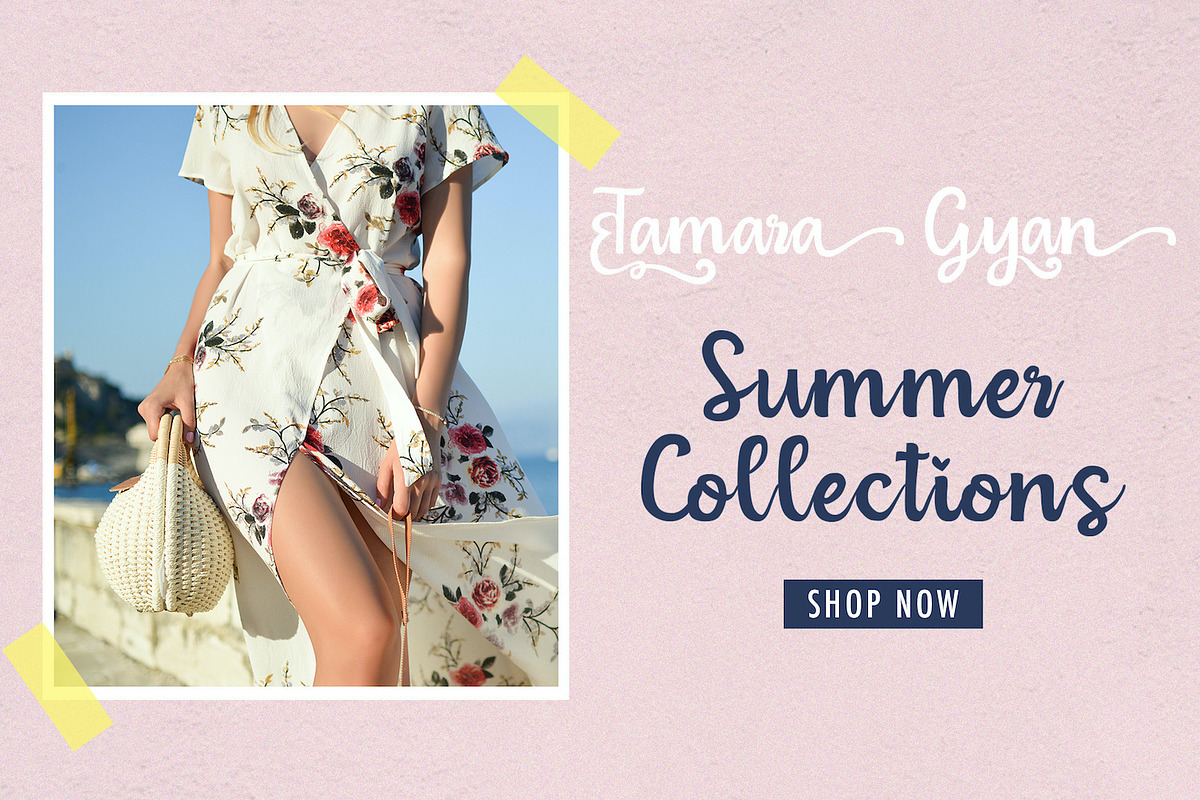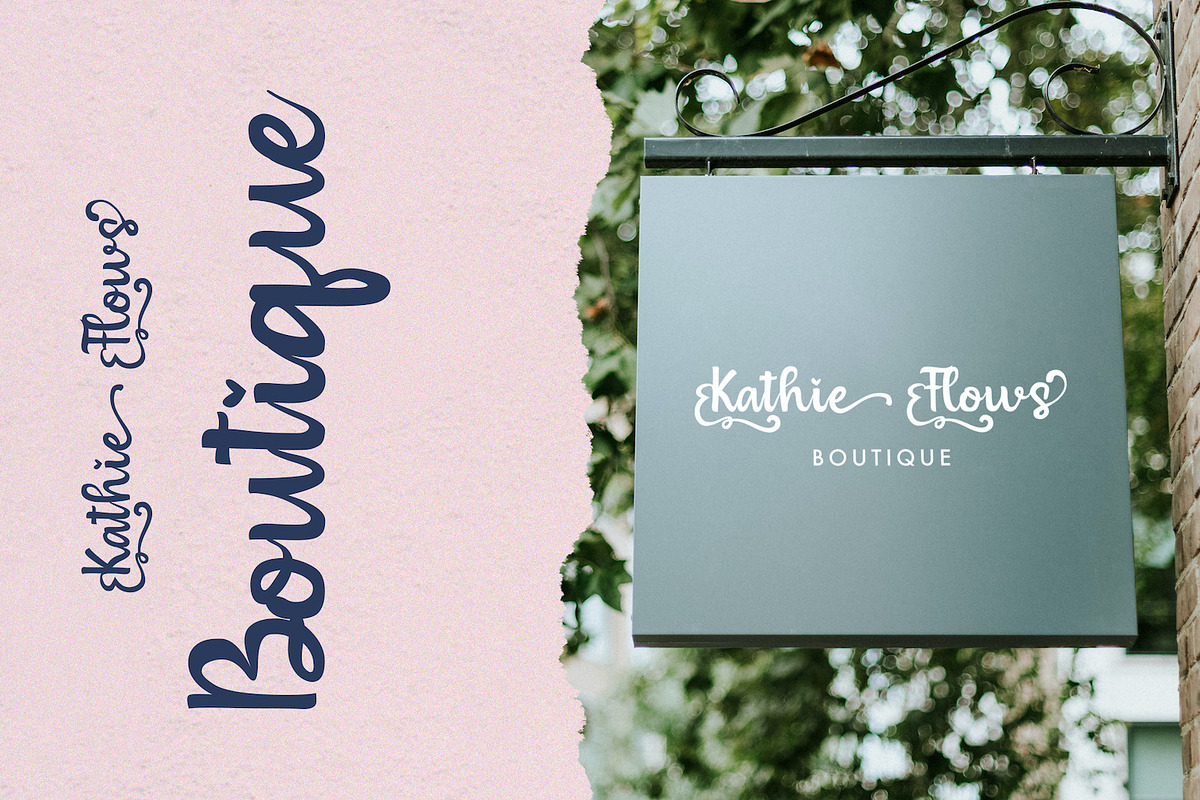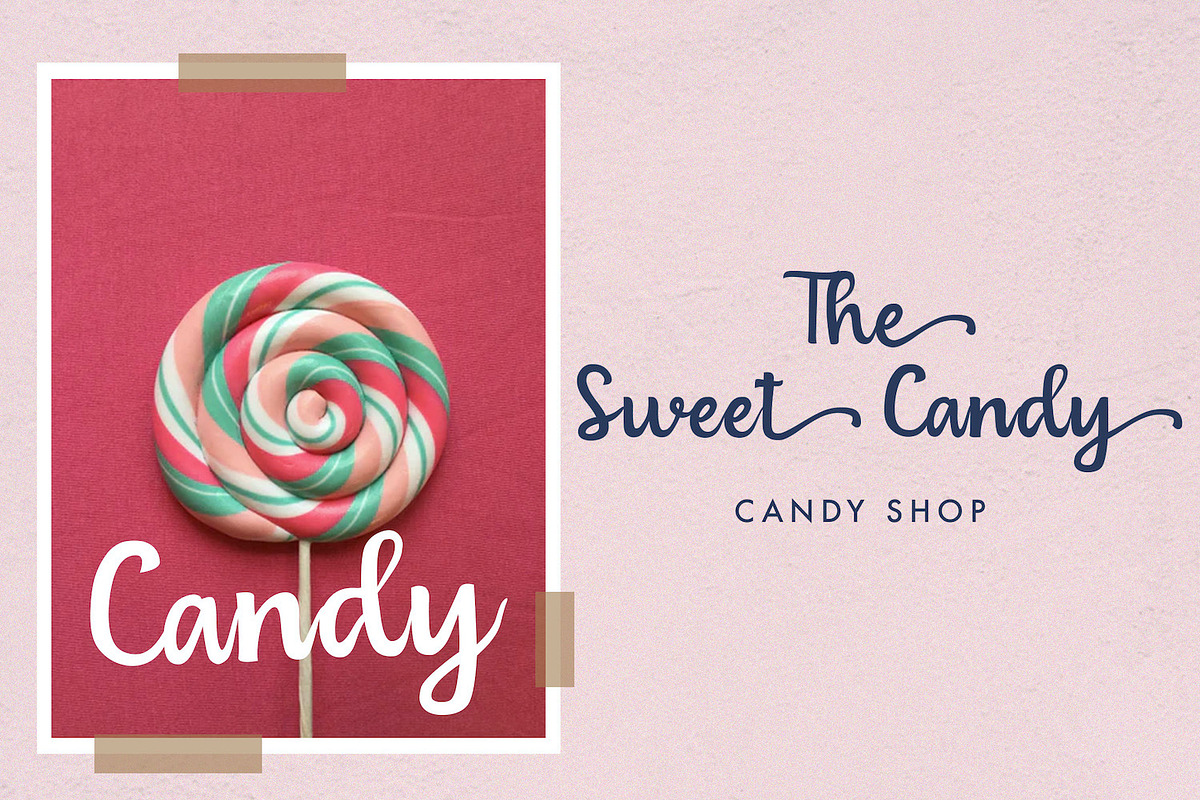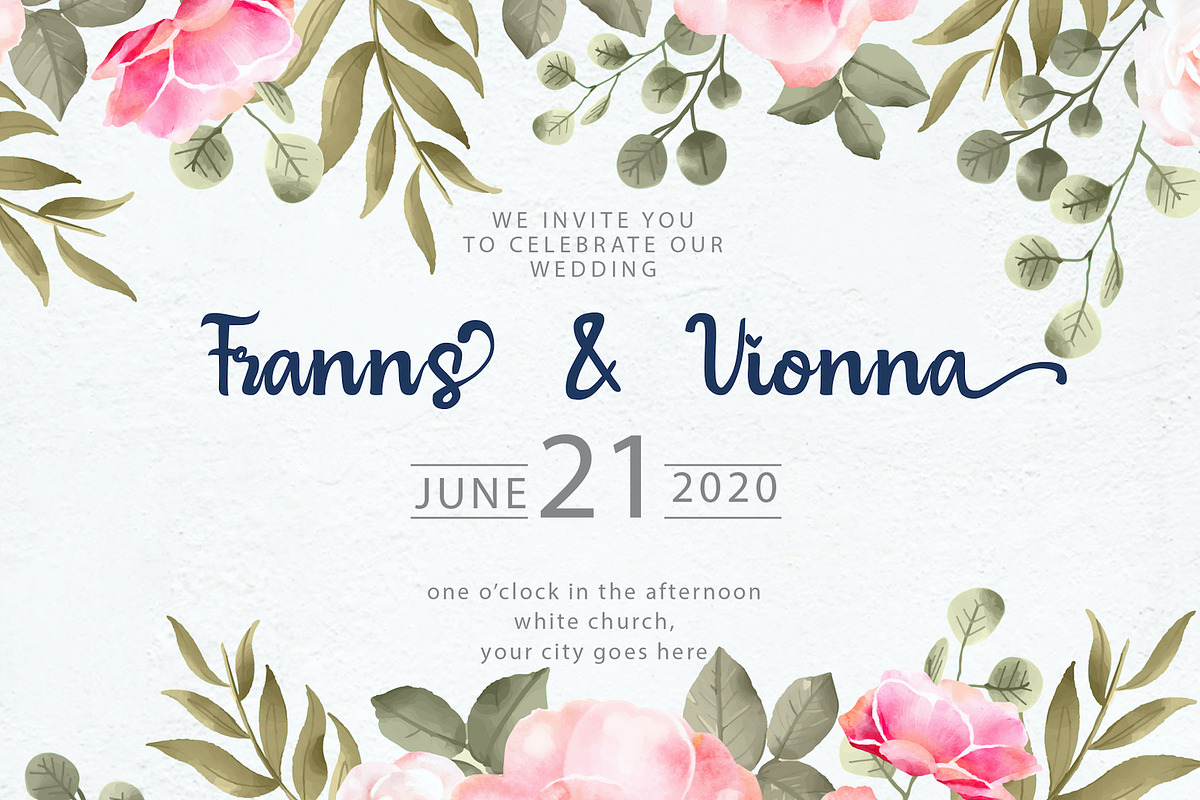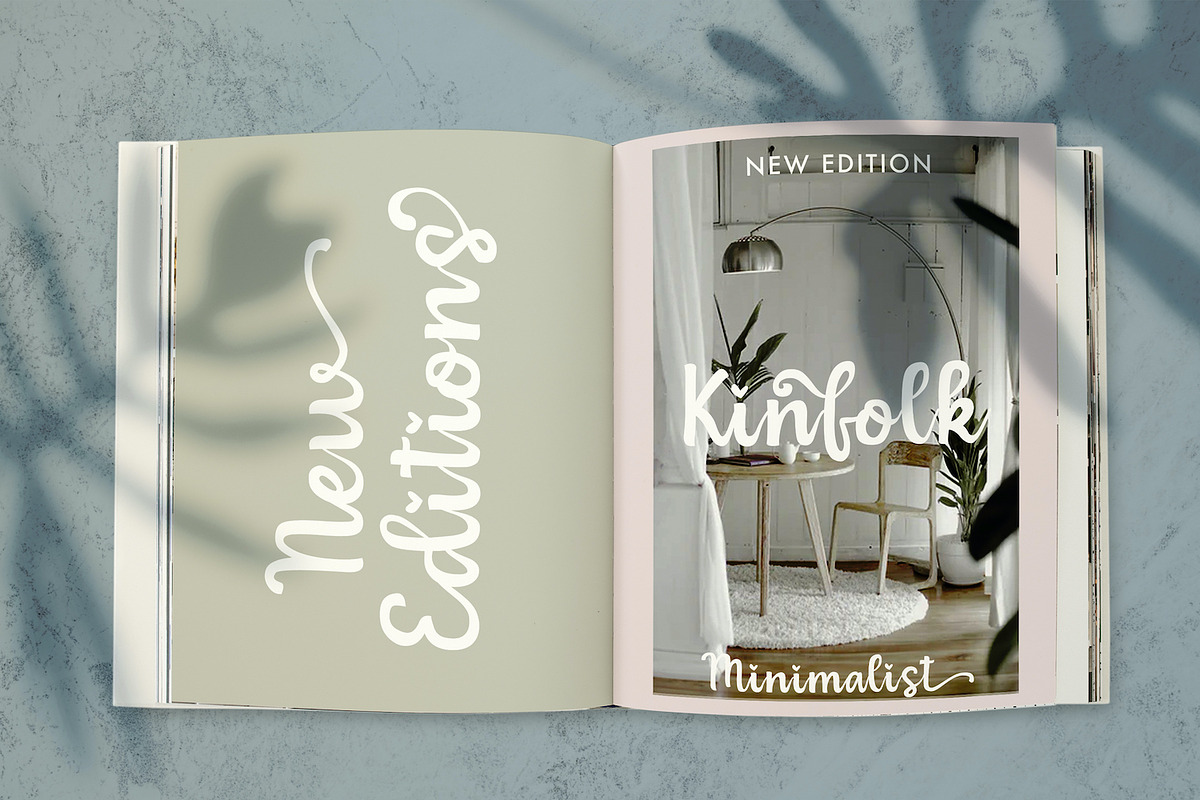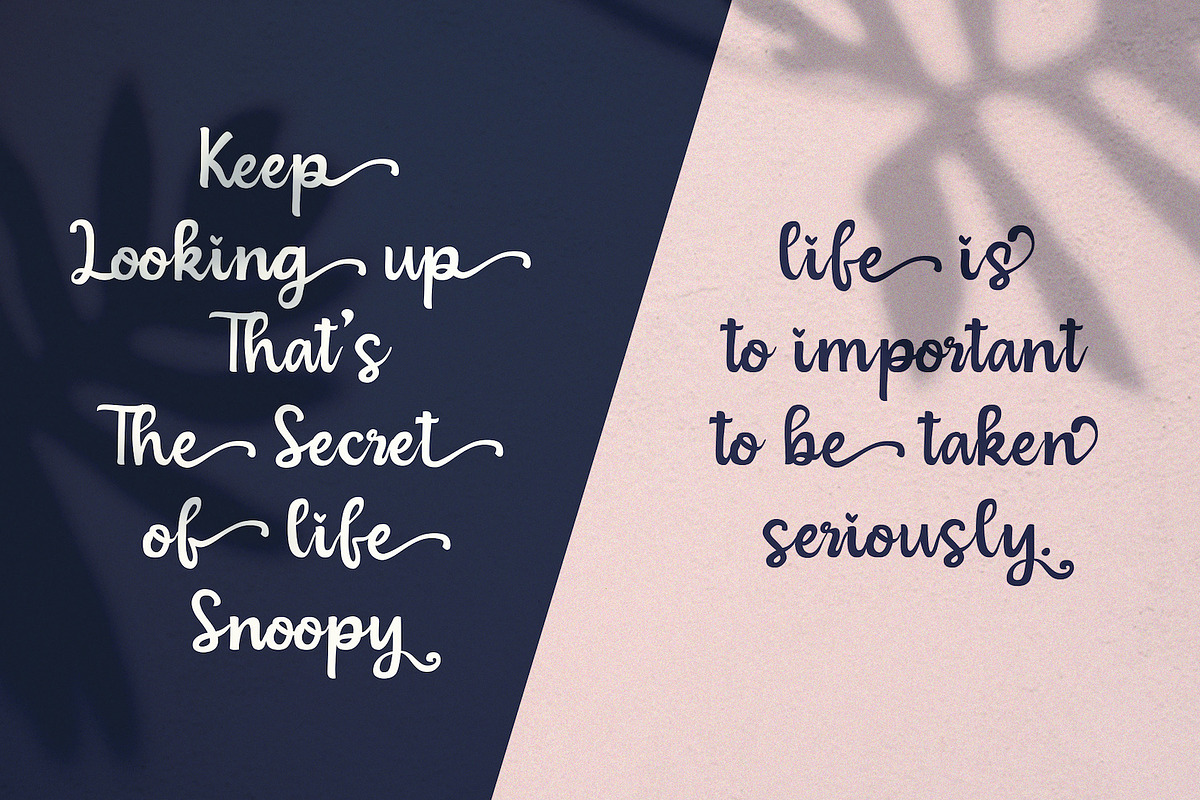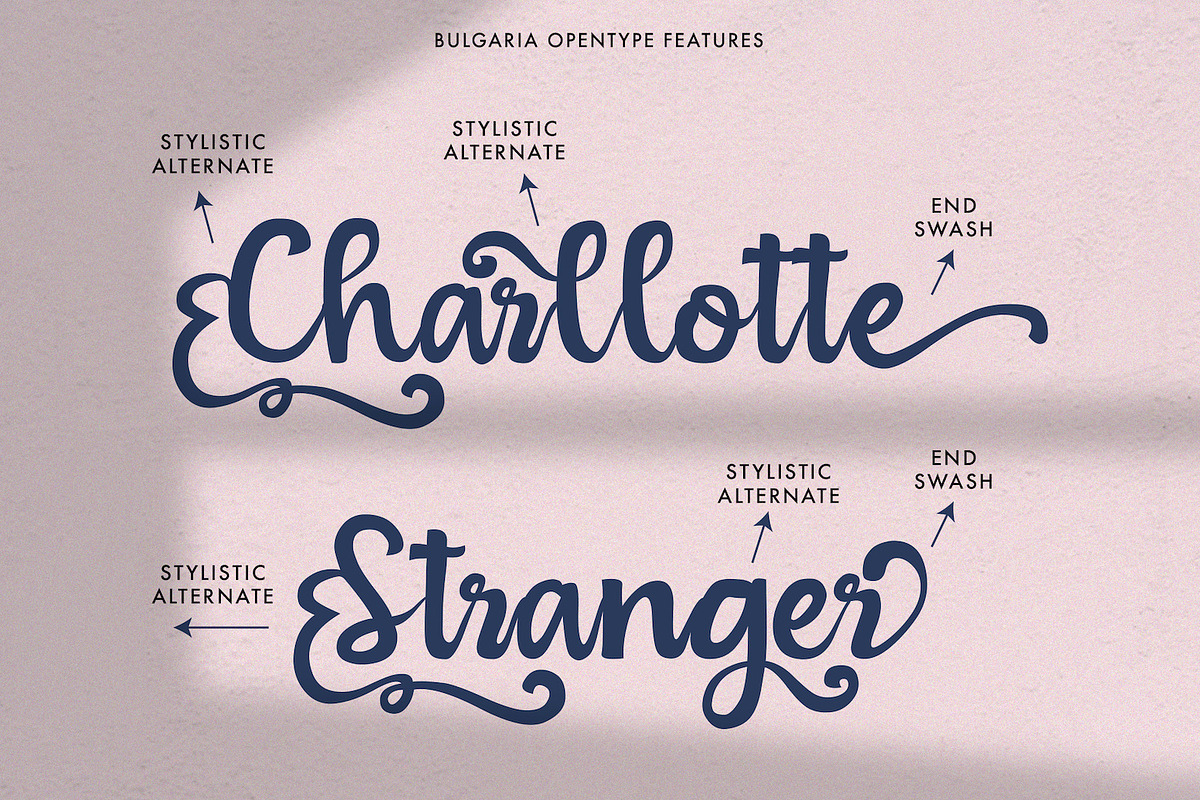
Bulgaria - Modern Calligraphy Font
Introducing Bulgaria - Modern Calligraphy Font
Bulgaria is a Script Font with Calligraphy Style. The Bulgaria font made with modern digital brush pen strokes that making this font look beautiful. This font is perfect for fashion brand, wedding invitation, business card, logo brand, signature, and then calligraphy.
- This Font contains Elegant, Creative, Beautiful and has a Unique Concept.
Why Bulgaria - Modern Calligraphy Font is worth a look
Bulgaria - Modern Calligraphy Font by StringLabs fits naturally into Branding, posters, packaging, typography.